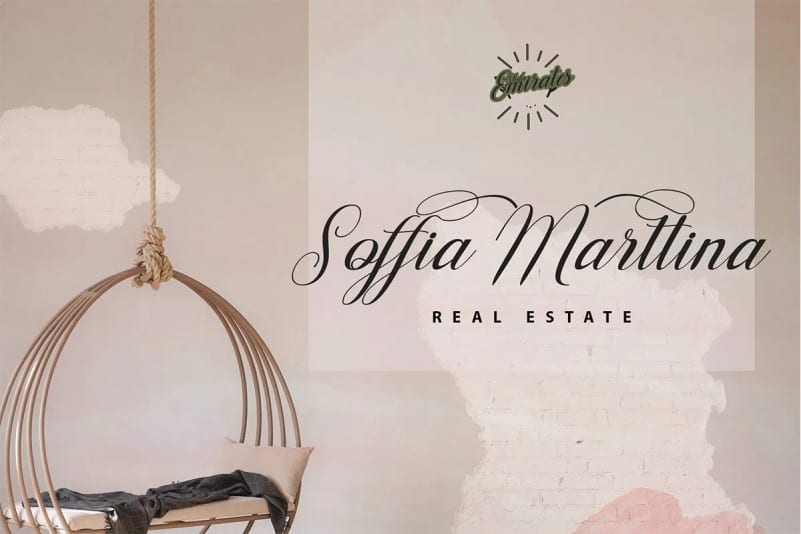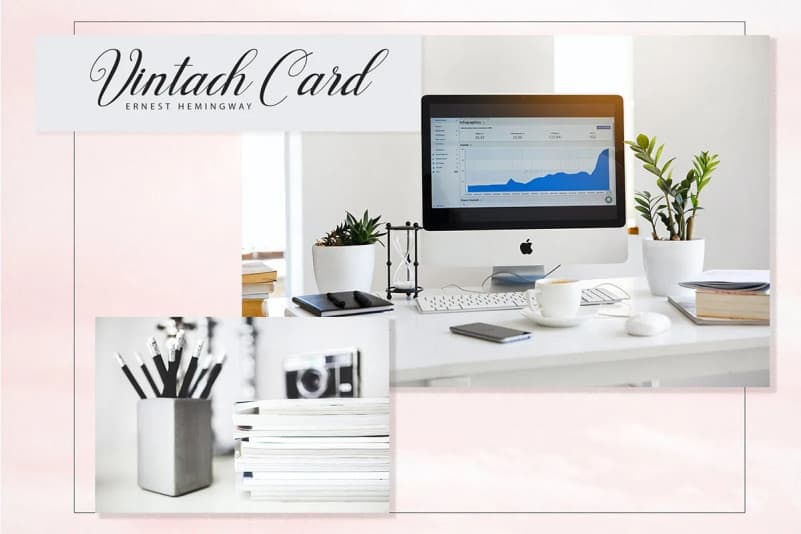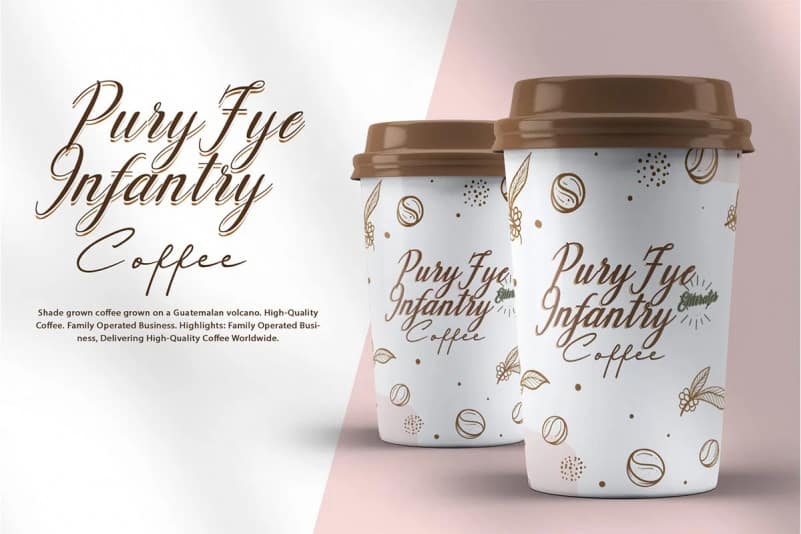
Hello Olivia Calligraphy Font is a calligraphy Typeface that comes with a modern and vintage touch in it. This font is great for your design projects such as logos, posters, invitation cards, packaging, badges, types of logos, clothing designs, labels and more.
This font has many alternative fonts in it, making it easier for you to beautify the writing you need. Nolian Script is also multilingual support.